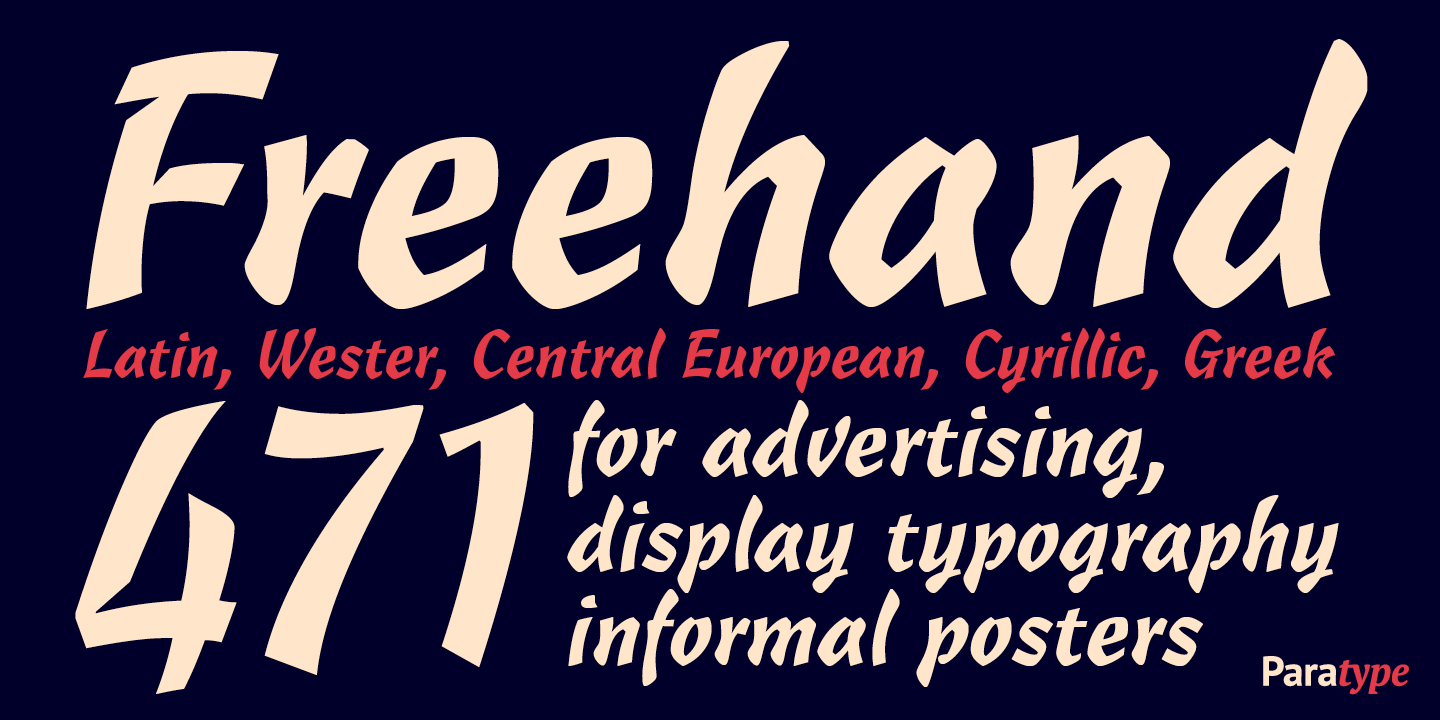
Freehand 471 Font is perfect for artistic portfolio designs, creative studio branding, hand-lettered poster campaigns, artisan craft labels, bohemian lifestyle brands, artistic workshop materials, creative freedom expressions, independent artist promotions, spontaneous design projects, and authentic handmade aesthetics.
What makes Freehand 471 Font so exciting is its spontaneous artistic character that embodies the creative freedom and expressive authenticity of hand-drawn lettering and artistic spontaneity. This typeface features naturally irregular letterforms with artistic imperfections and human touch that celebrates the beautiful unpredictability of freehand creation. The font's liberated and expressive character communicates creative independence and artistic authenticity, making it perfect for artists and creative brands seeking to establish genuine artistic connections and appeal to audiences who value handmade authenticity and the unrestricted beauty of creative expression.
Freehand 471 Font family includes Regular weight with natural variations and artistic alternates that enhance the handmade character. The family also features special character sets including artistic symbols, creative flourishes, and expressive decorative elements that amplify the font's connection to freehand artistry and spontaneous creative expression themes.
Freehand 471 Font supports comprehensive character sets including Latin alphabets, numbers, punctuation marks, and special artistic symbols. The font's naturally varied spacing reflects authentic hand-lettering rhythm while ensuring excellent readability across all creative applications. Its character variations include artistic alternates, creative ligatures, and expressive decorative elements that expand possibilities for spontaneous design projects.
Professional designers choose Freehand 471 Font for projects requiring authentic artistic appeal and handmade creative aesthetics. The font excels in applications where creative authenticity and artistic expression are essential, offering the perfect solution for brands seeking to communicate artistic independence, creative freedom, and connection to handmade traditions. Its freehand character makes it ideal for art studios, creative agencies, and independent artist collectives.